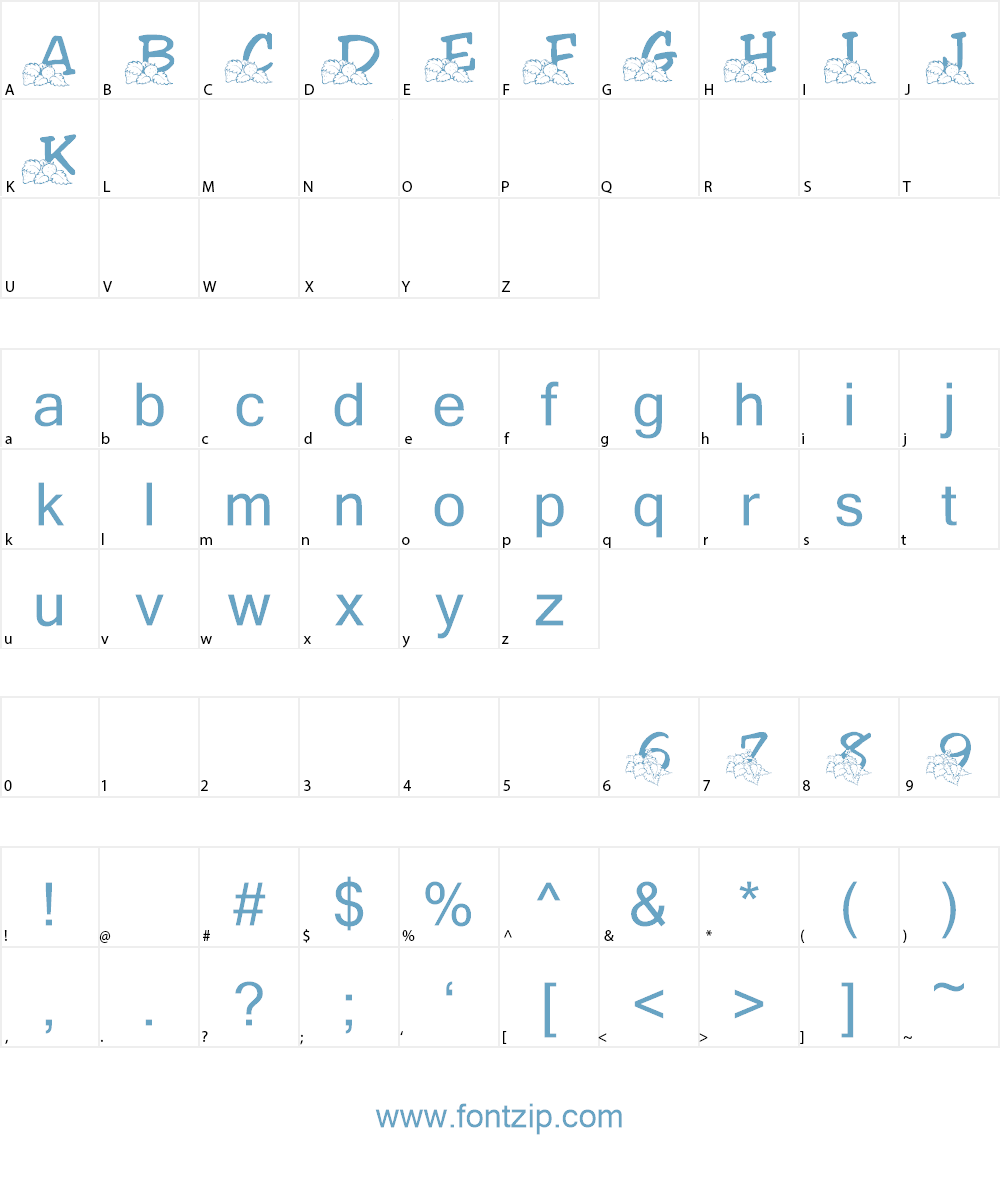
This font is part of
my Mothers Day gift (2001). See, my grandfather cross-bred
strawberries and one of his most loved (and my favorite) he named
Lindalicious after his youngest daughter (my mom) Linda.